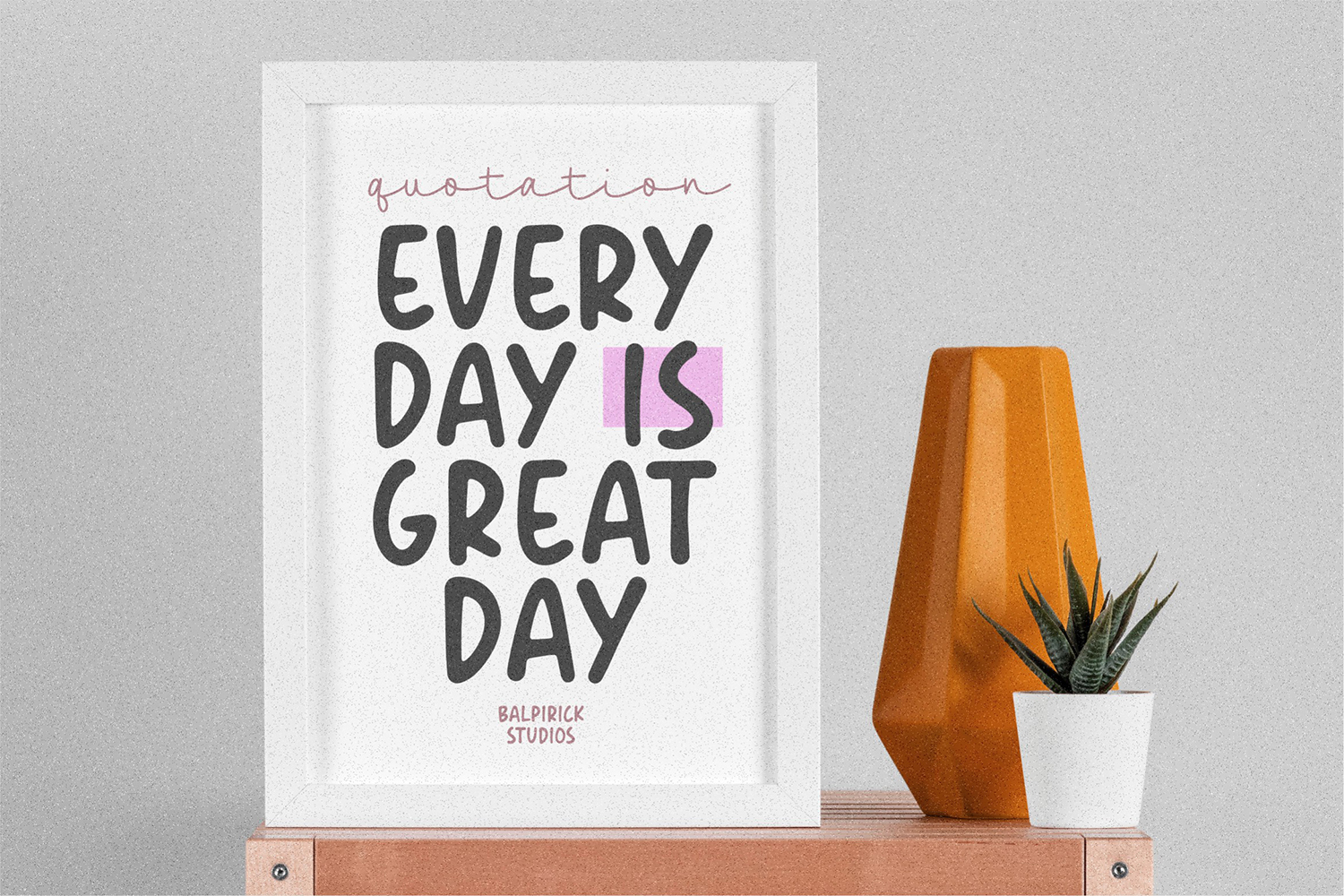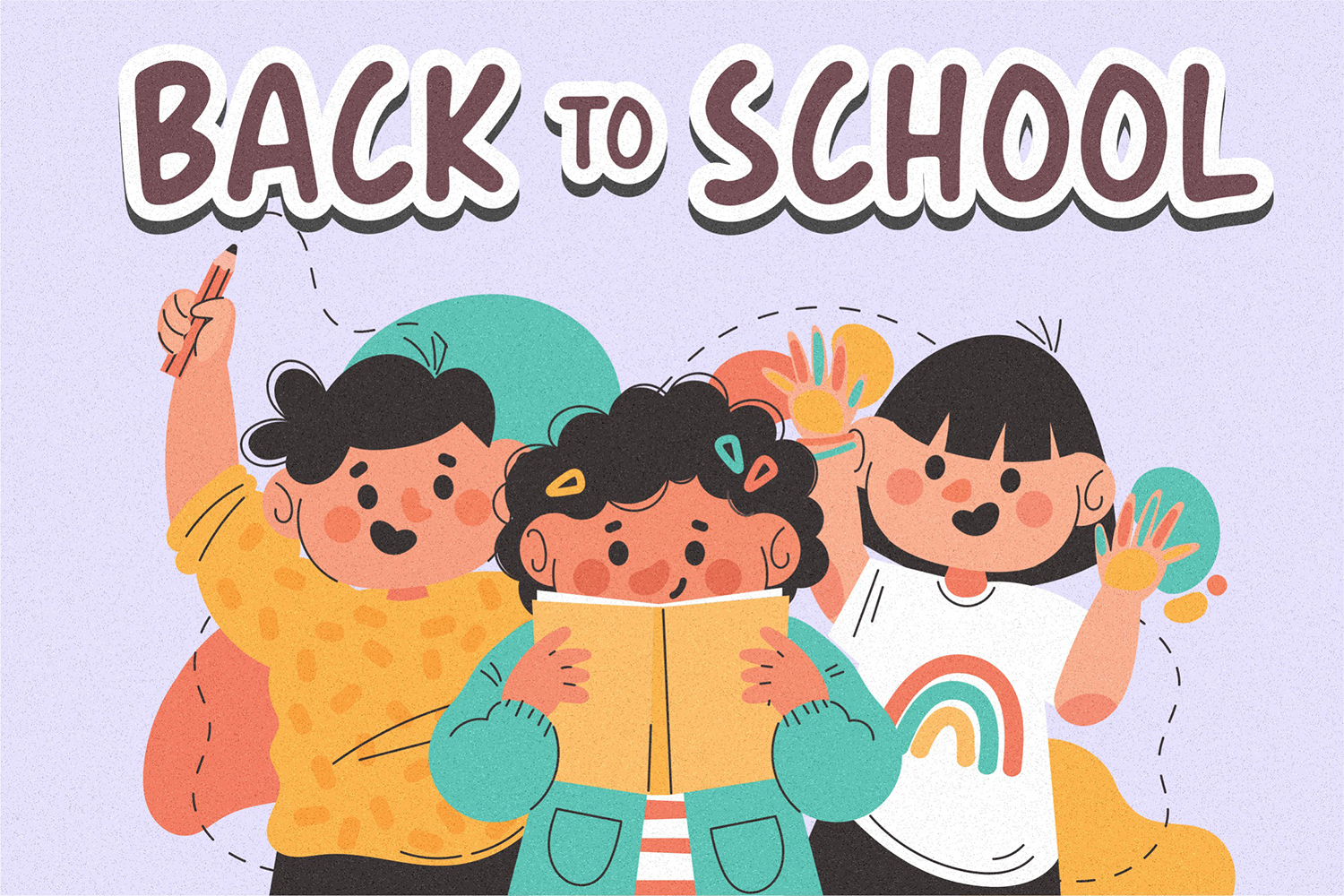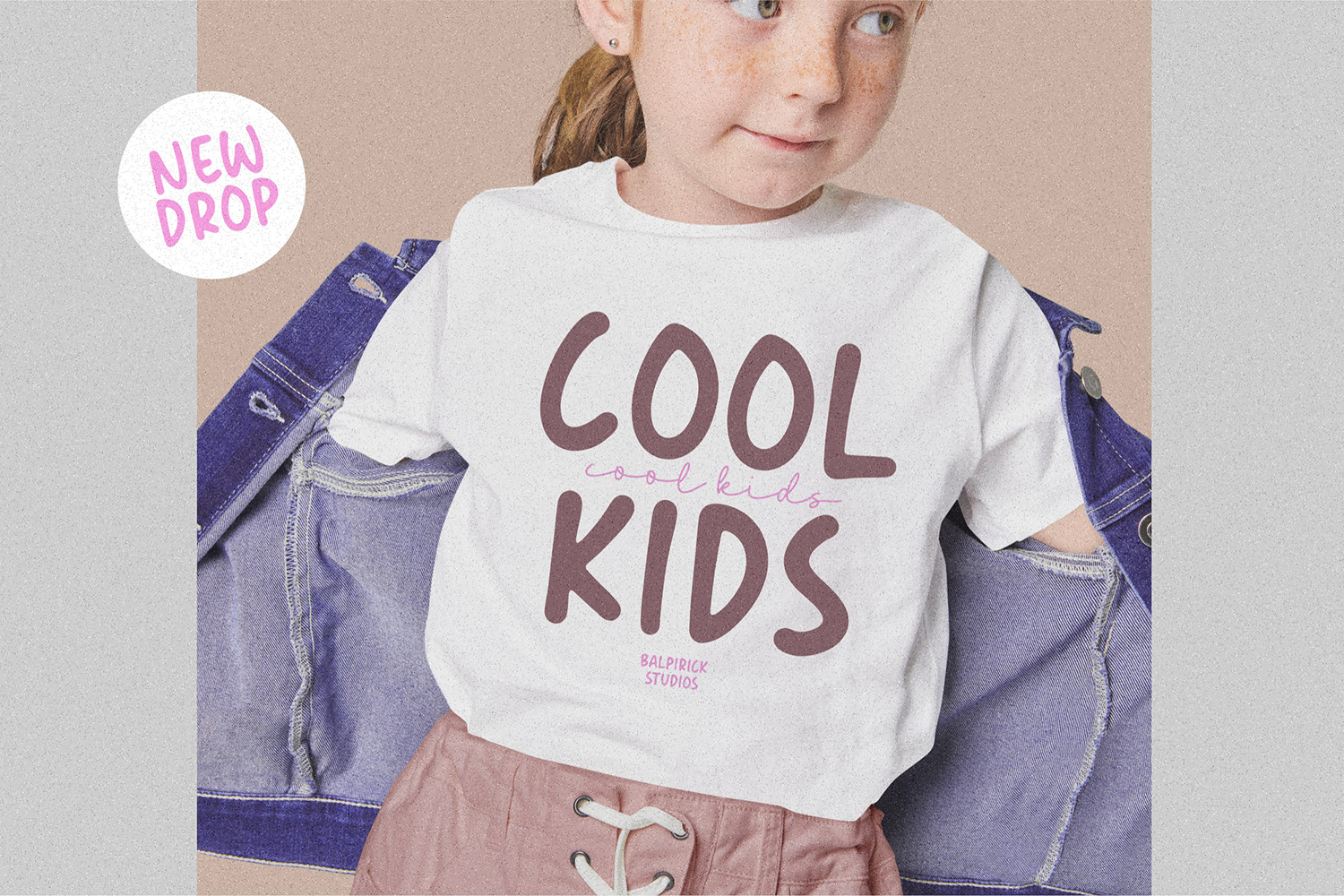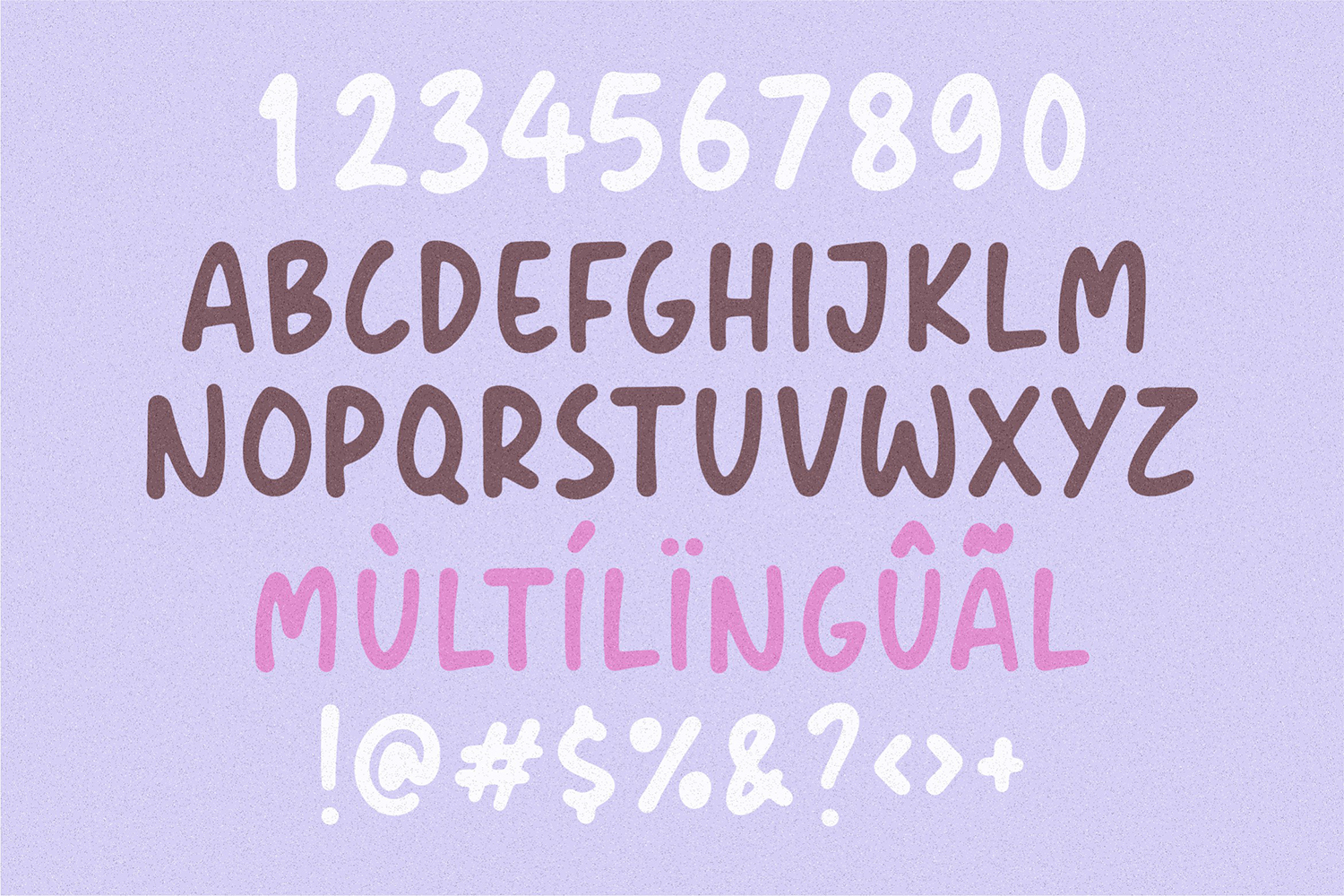
Cupid Gummies Free Font
Cupid Gummies Free Font is a sweet and cute handbrushed font. Whether you’re using it for crafts, digital design, presentations, or making greeting cards, this font has the potential to become your favorite go-to font, no matter the occasion. This free typeface was designed by a talented Balpirick Studio. If you like it don’t forget to check out the full version.